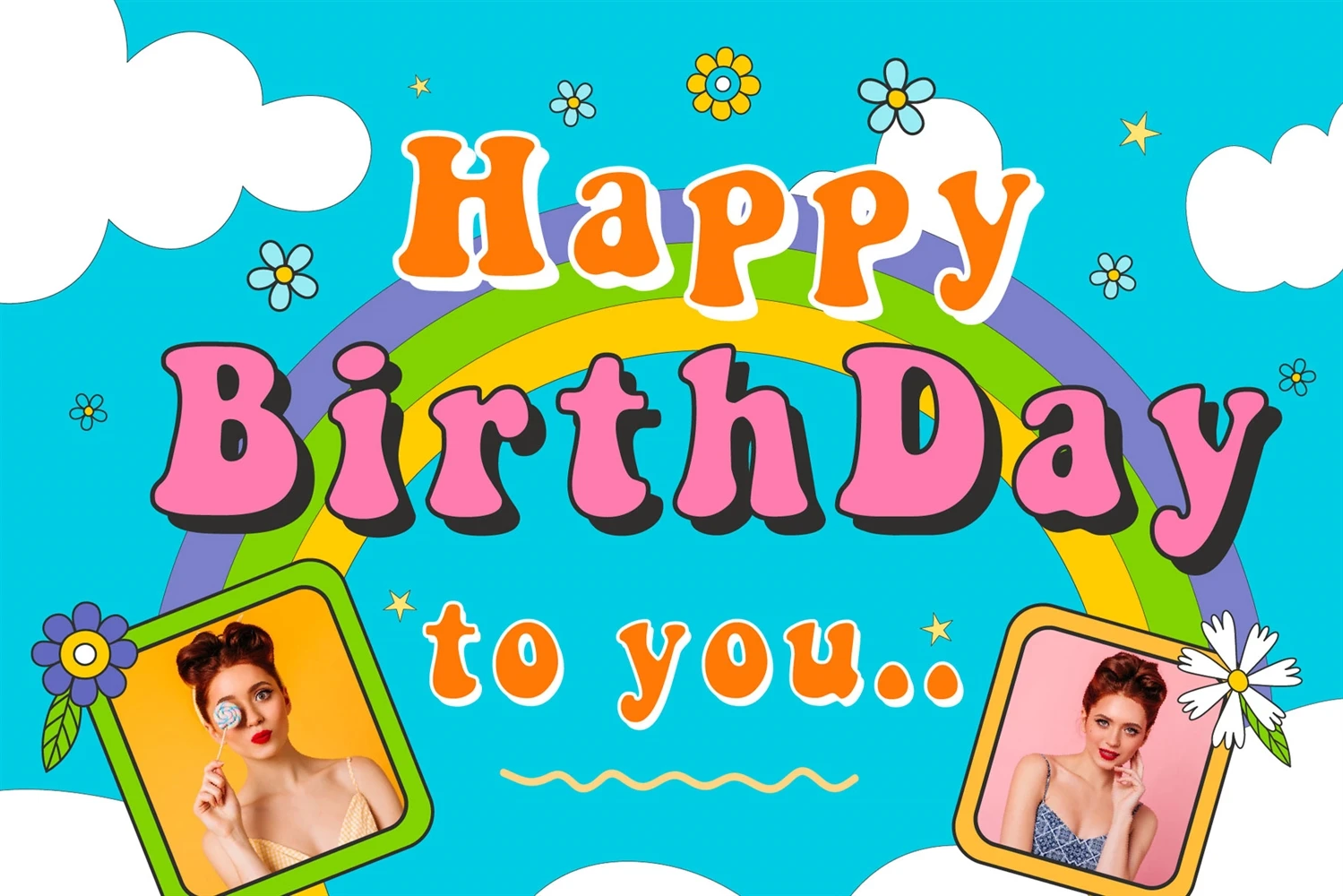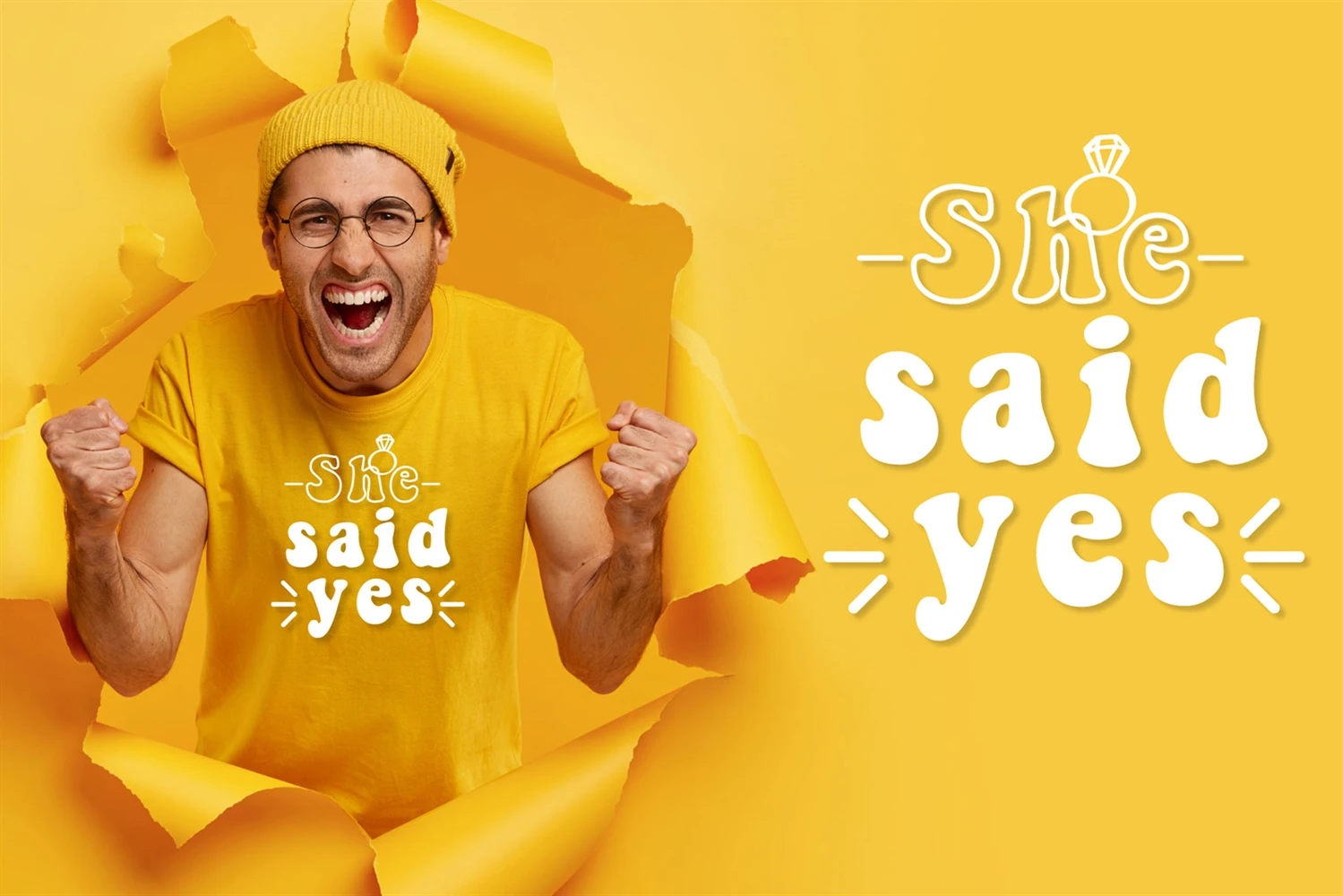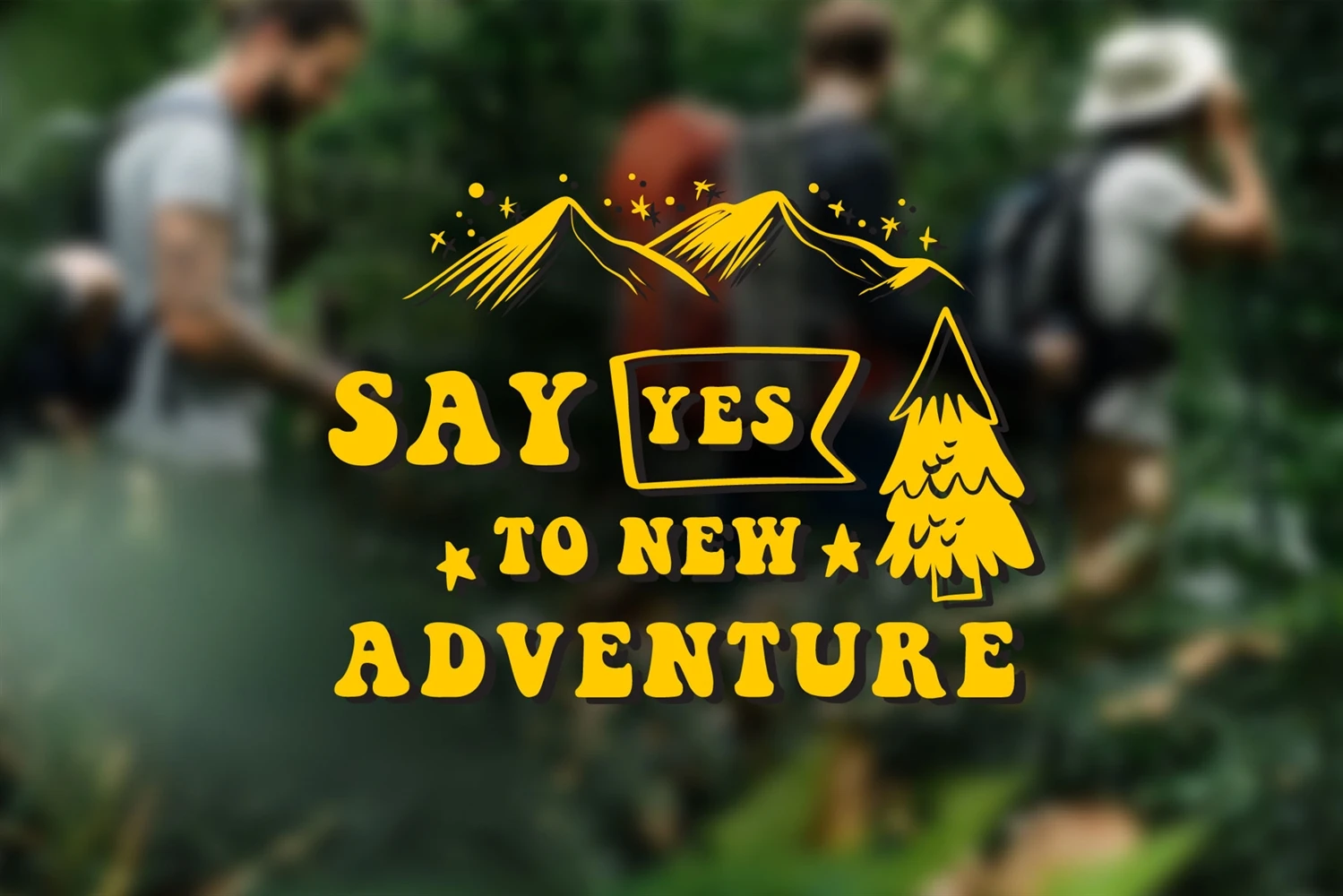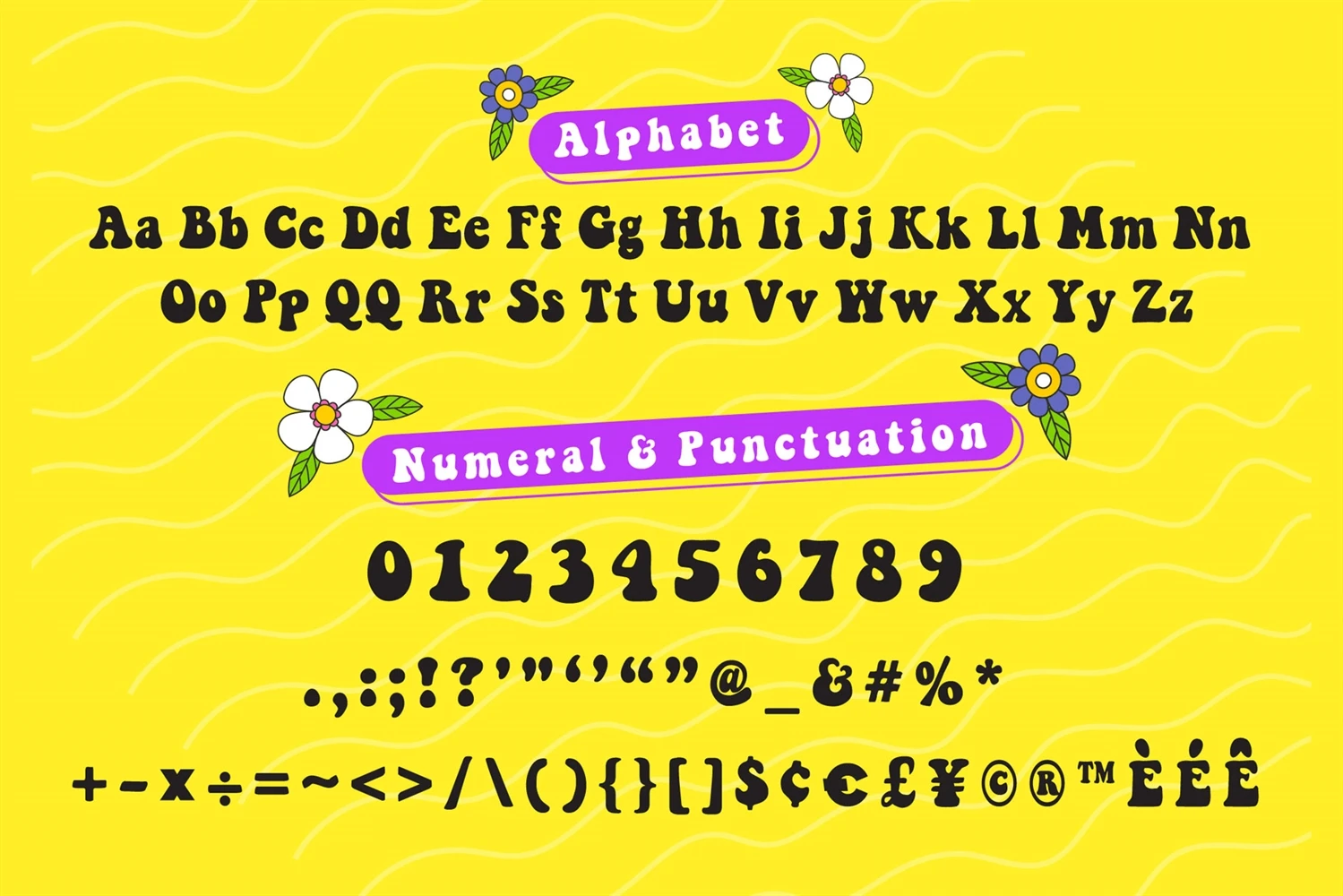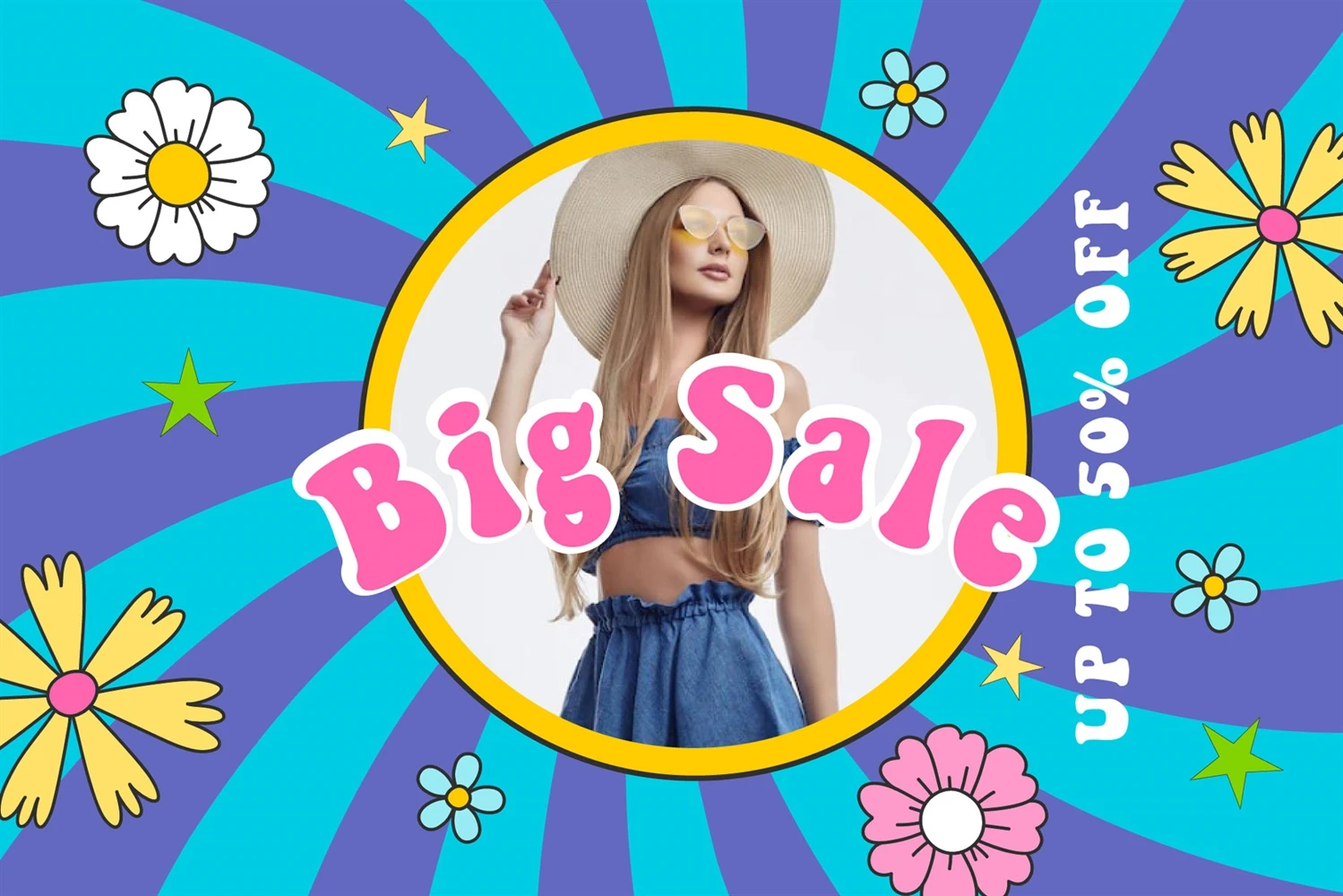
Yeah is a cool comic-style display font with a great punchline. Everything written with this font will instantly be recognizable and will grab attention. It will work great for comic-style books, online games, classic/retro event posters, movie titles, eye-catching social media posts, or anything that needs a youthful yet bold touch.